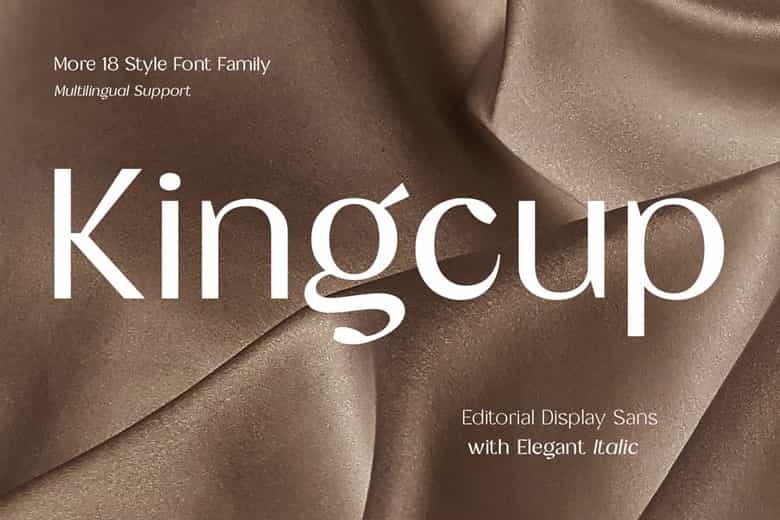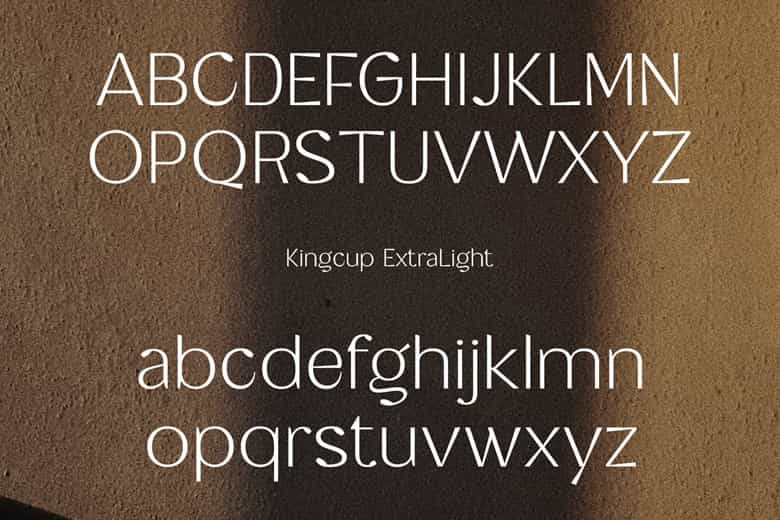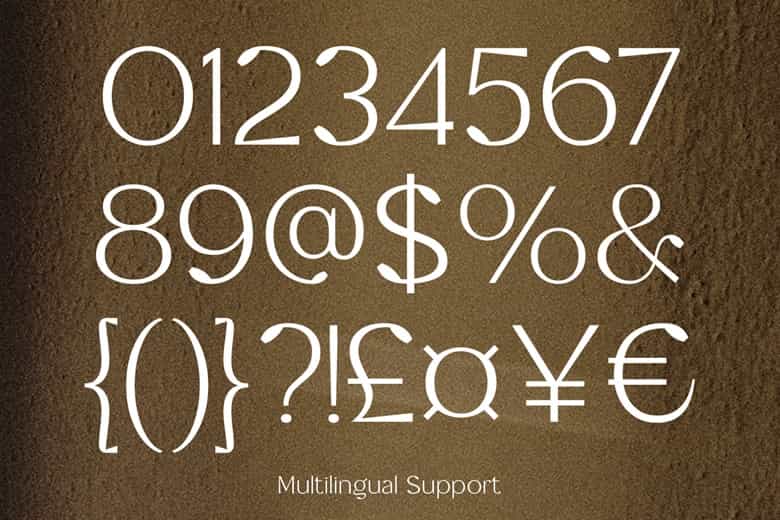
Kingcup is a modern sans-serif font with 18 styles: from thin to black and from regular to italic. The smooth design and aesthetically appealing features enable the use of this font in branding, logos, weddings, social media, adverts, and packaging amongst others.